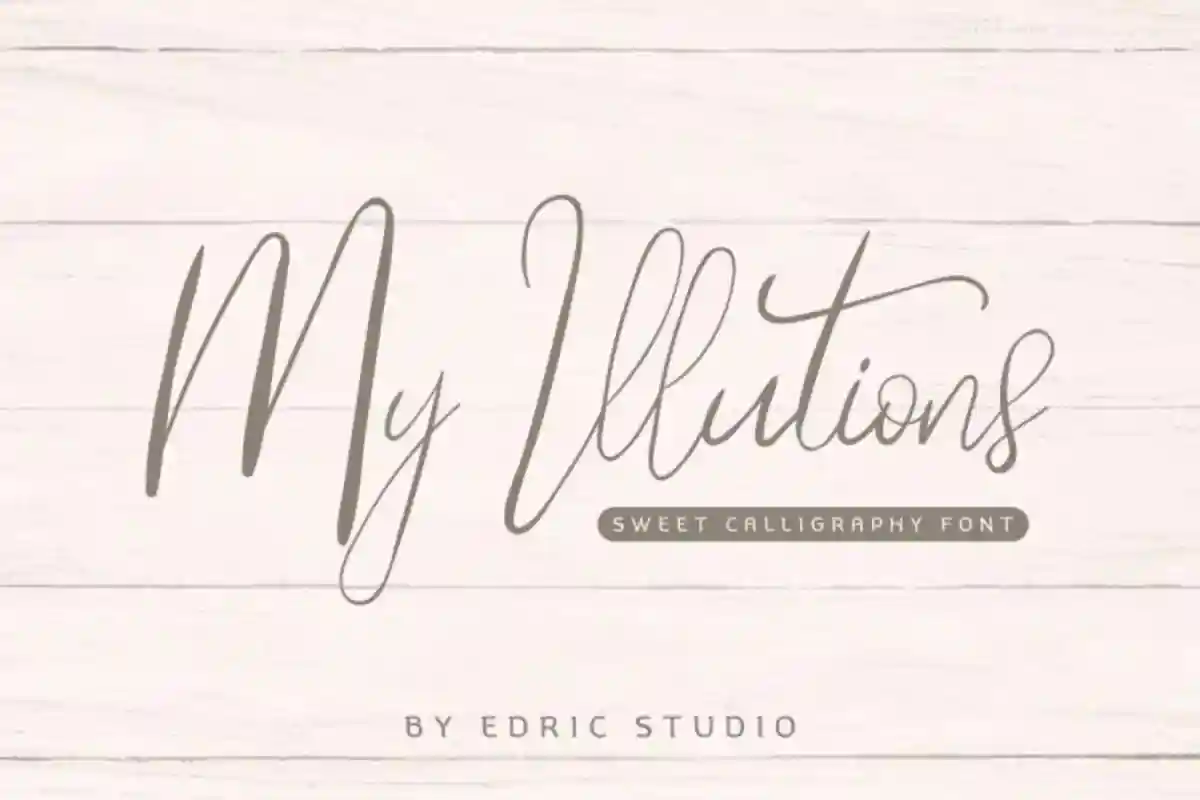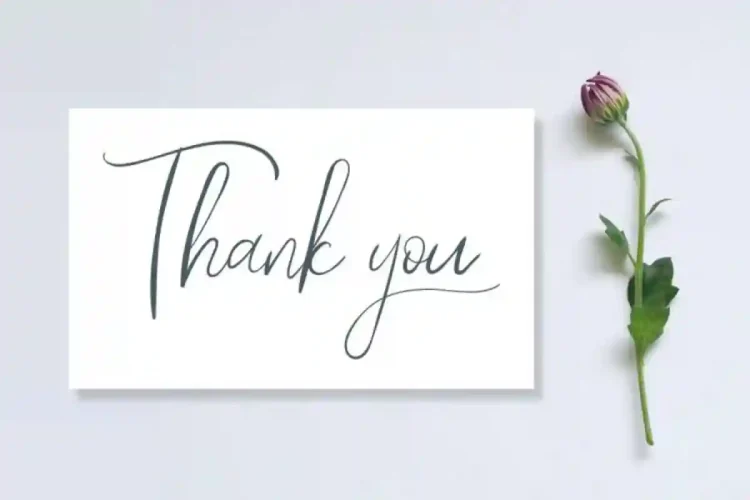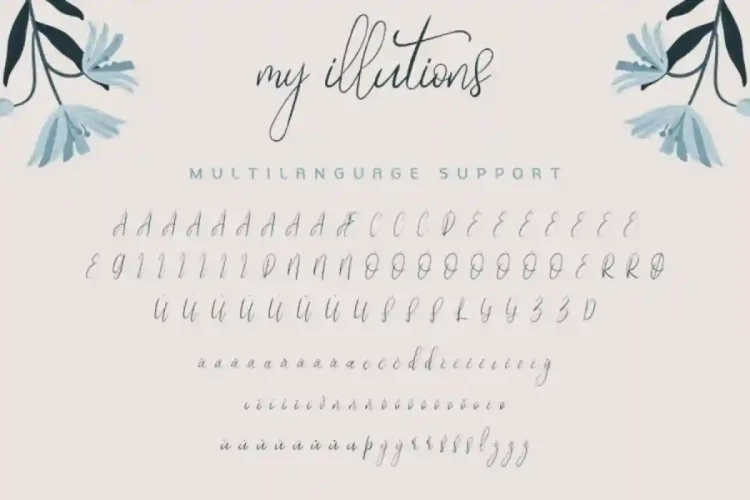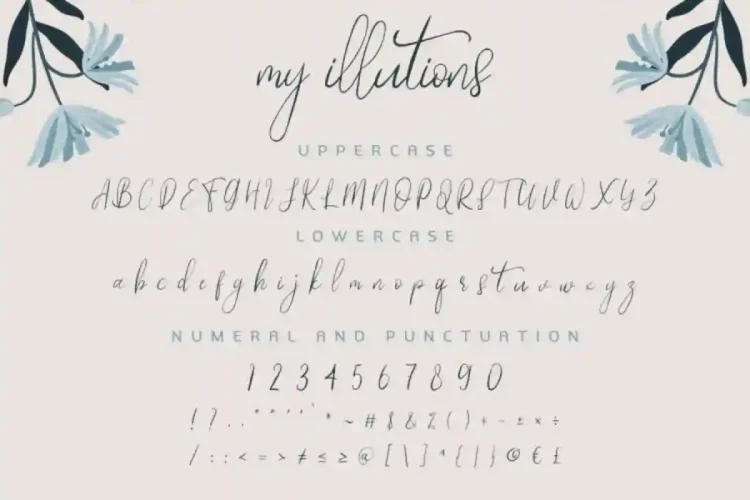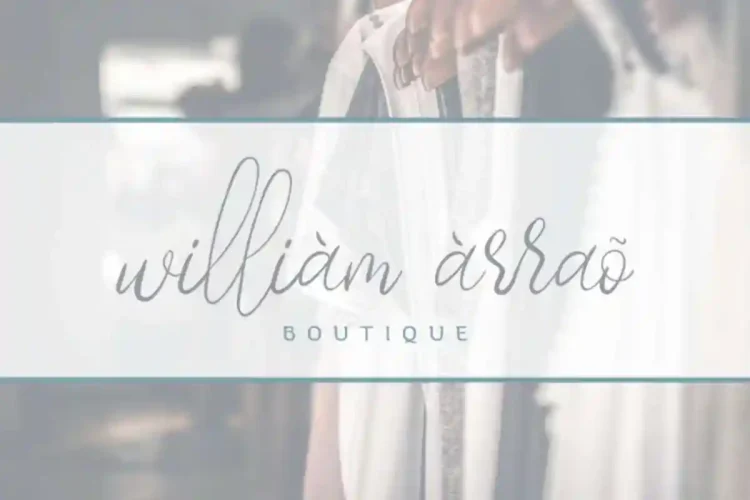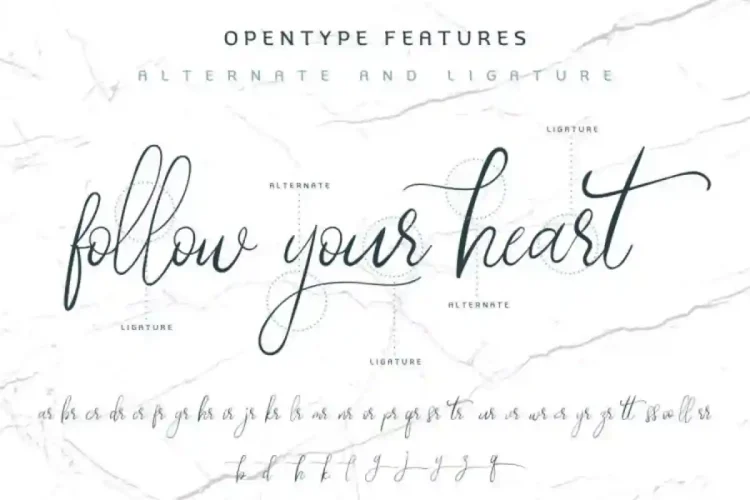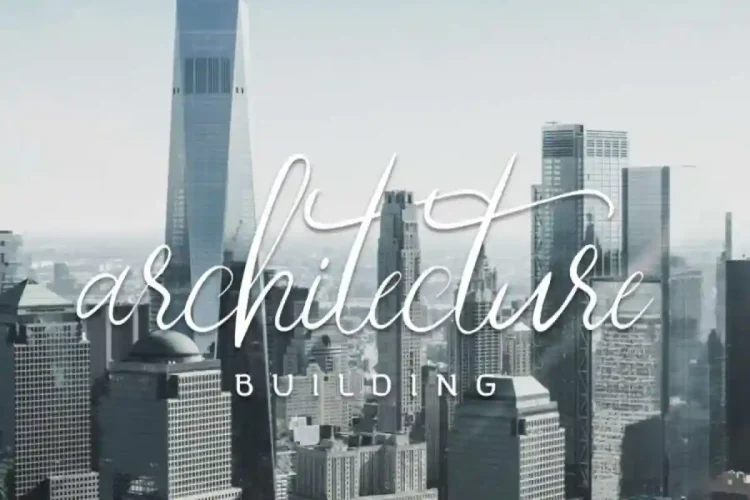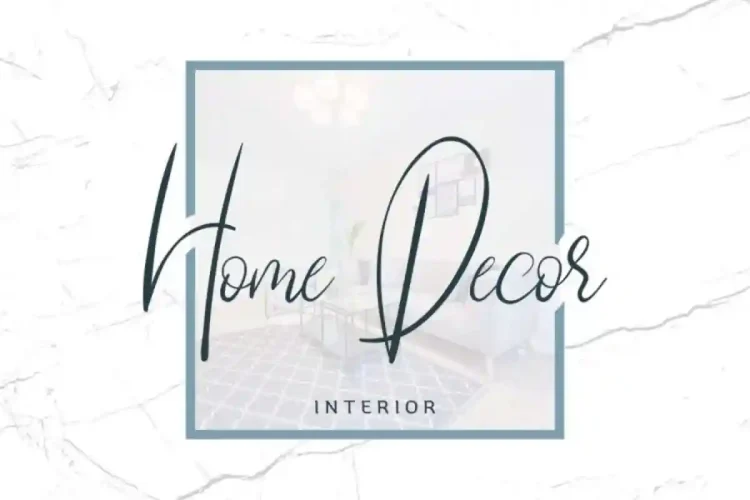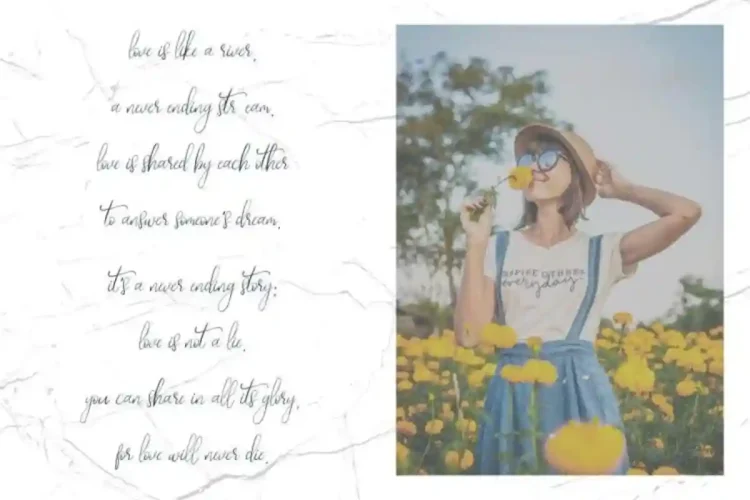
My Illutions Calligraphy Font
Welcome back! Please meet our new baby : My illutions
My illutions is a calligraphy script made on 2020, hand crafted here from Bandung.
My illutions Font has a beautiful glyhps set. Including many international languages characters.
This font is a stylish modern calligraphy font with an exclusive characters which will be found anywhere else, in term of the style. With an extended licenses, you can create unlimited creations :branding, logo, stationery, business card, signage, flyer, brochure etc. This font will be suitable for many designs industry category : medical, dentist, music, writter, singer, makeup artist, real estate, lawyers, etc